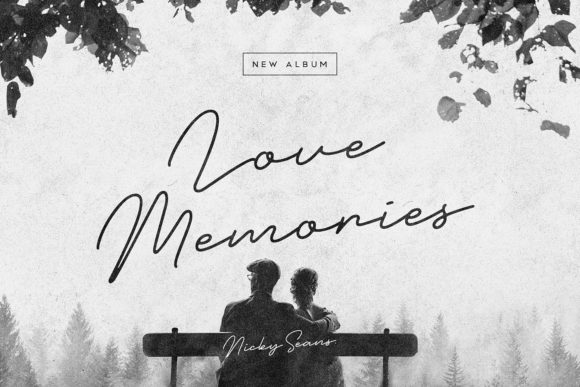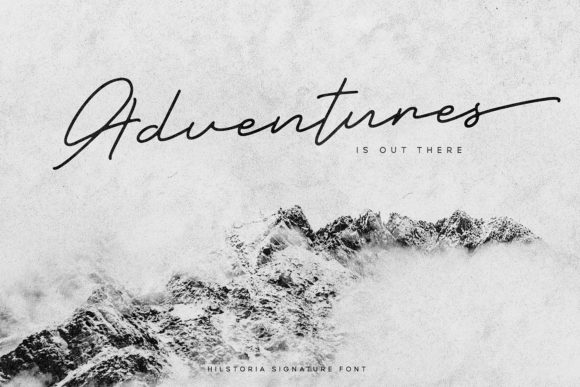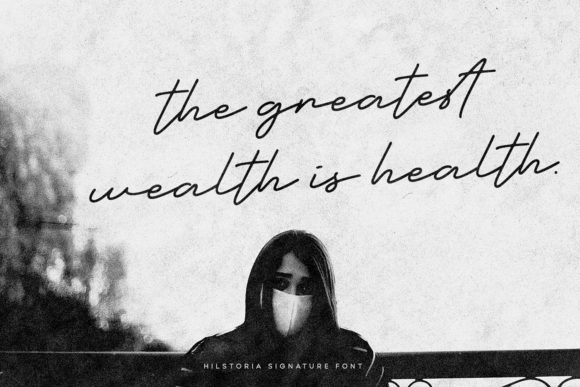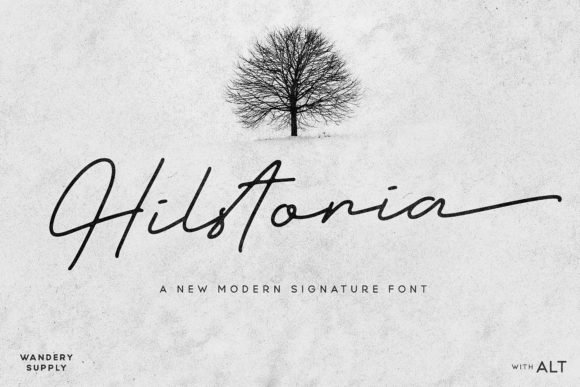
Hilstoria is a modern and stylish script font.
It features an incredibly classic style, while still keeping a friendly feel Hilstoria is the perfect font for making original and outstanding designs.